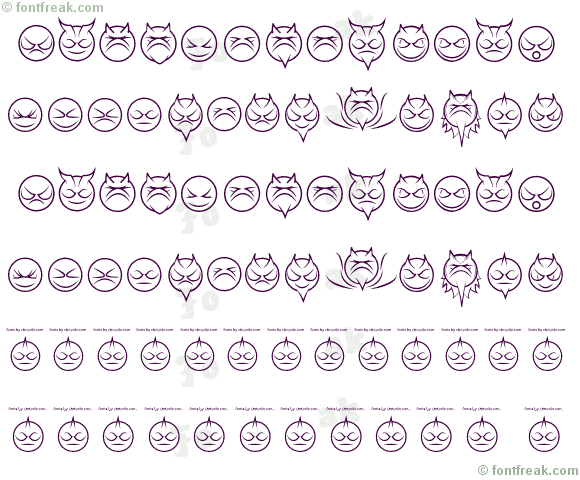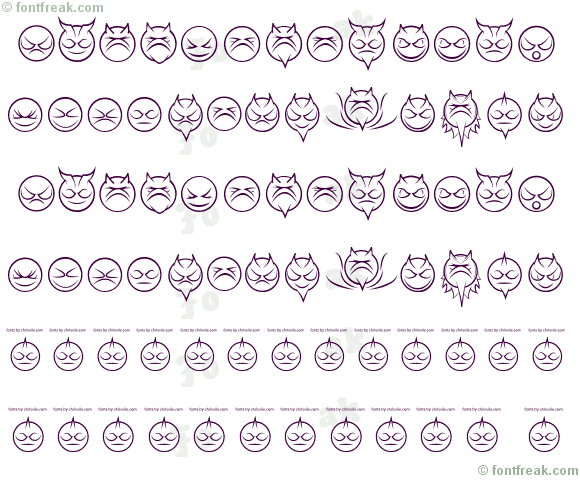
somedevilfaces-Regular
some devil faces Regular
The somedevilfaces-Regular font by Chris Vile is a unique display font that captures attention with its whimsical and playful character. This font features a collection of stylized faces, each with distinct expressions that evoke a range of emotions. The stroke weight is consistent, providing a clean and uniform appearance, while the lack of contrast adds to its simplistic charm. The spacing between the characters is well-balanced, allowing for easy readability while maintaining a decorative flair.
Ideal for creative projects that require a touch of personality, the somedevilfaces-Regular font is perfect for use in children's books, party invitations, and playful branding. Its quirky nature makes it suitable for designs aimed at young audiences, making it a great choice for educational materials, merchandise for kids, and even social media graphics that aim to engage viewers. This font can also enhance the visual appeal of posters and flyers for events that emphasize fun and creativity.
The target audience for this font includes graphic designers, small business owners, and content creators looking to infuse their projects with a sense of whimsy. Whether you are designing promotional materials for a children's party or creating an eye-catching logo for a playful brand, somedevilfaces-Regular offers versatility while maintaining a lighthearted aesthetic.
What sets the somedevilfaces-Regular font apart is its ability to convey emotion through its character designs. Each face tells a story, inviting viewers to engage and connect with the content. The font stands out not only for its creativity but also for its ability to serve various design needs. For those seeking a distinctive and entertaining typeface, the somedevilfaces-Regular font free download is an excellent choice.